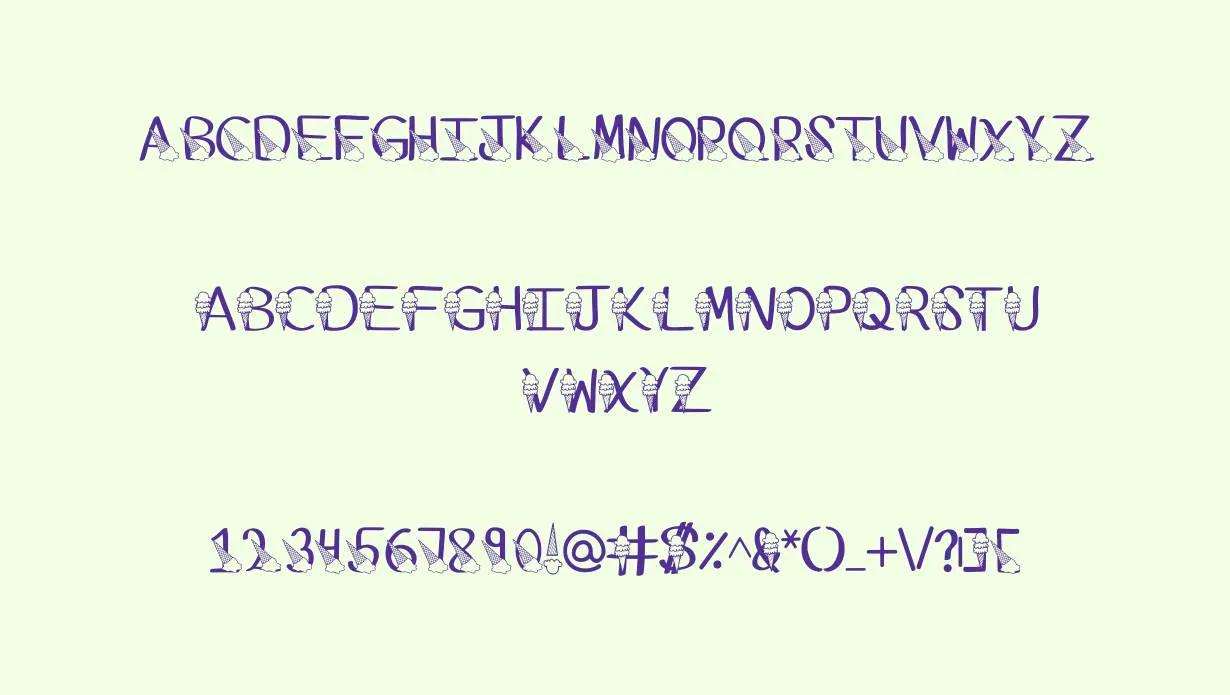
The KS Ice Cream Party font is like a fun treat for your eyes. It’s playful and sweet, just like your favorite ice cream cone on a sunny day. The letters dance across the screen or paper with delightful energy, making any text feel like a celebration.
Whether you’re designing a birthday card or invitation, or just want to add a touch of joy to your project, the KS Ice Cream Party font is a scoop of happiness in the world of typography.